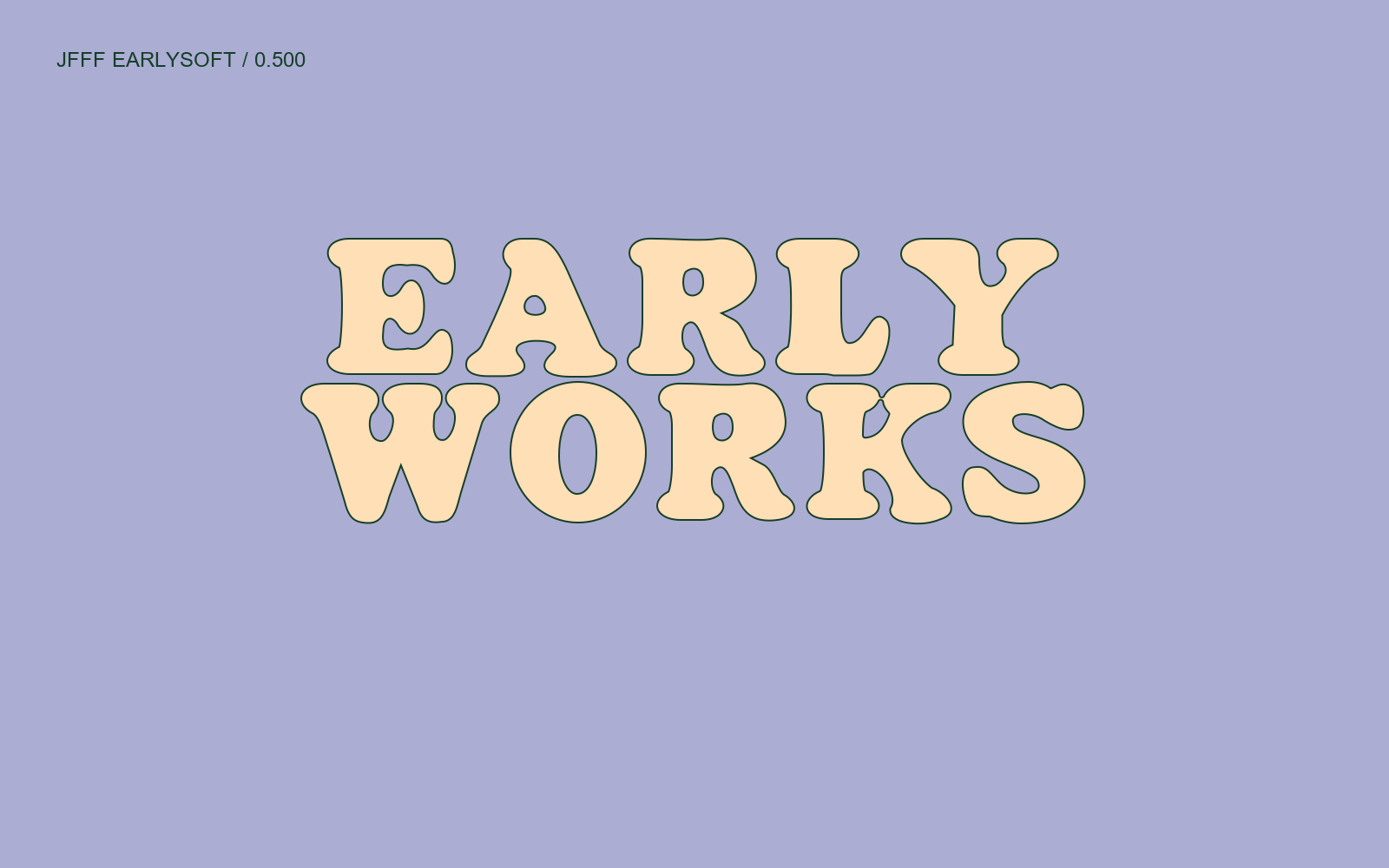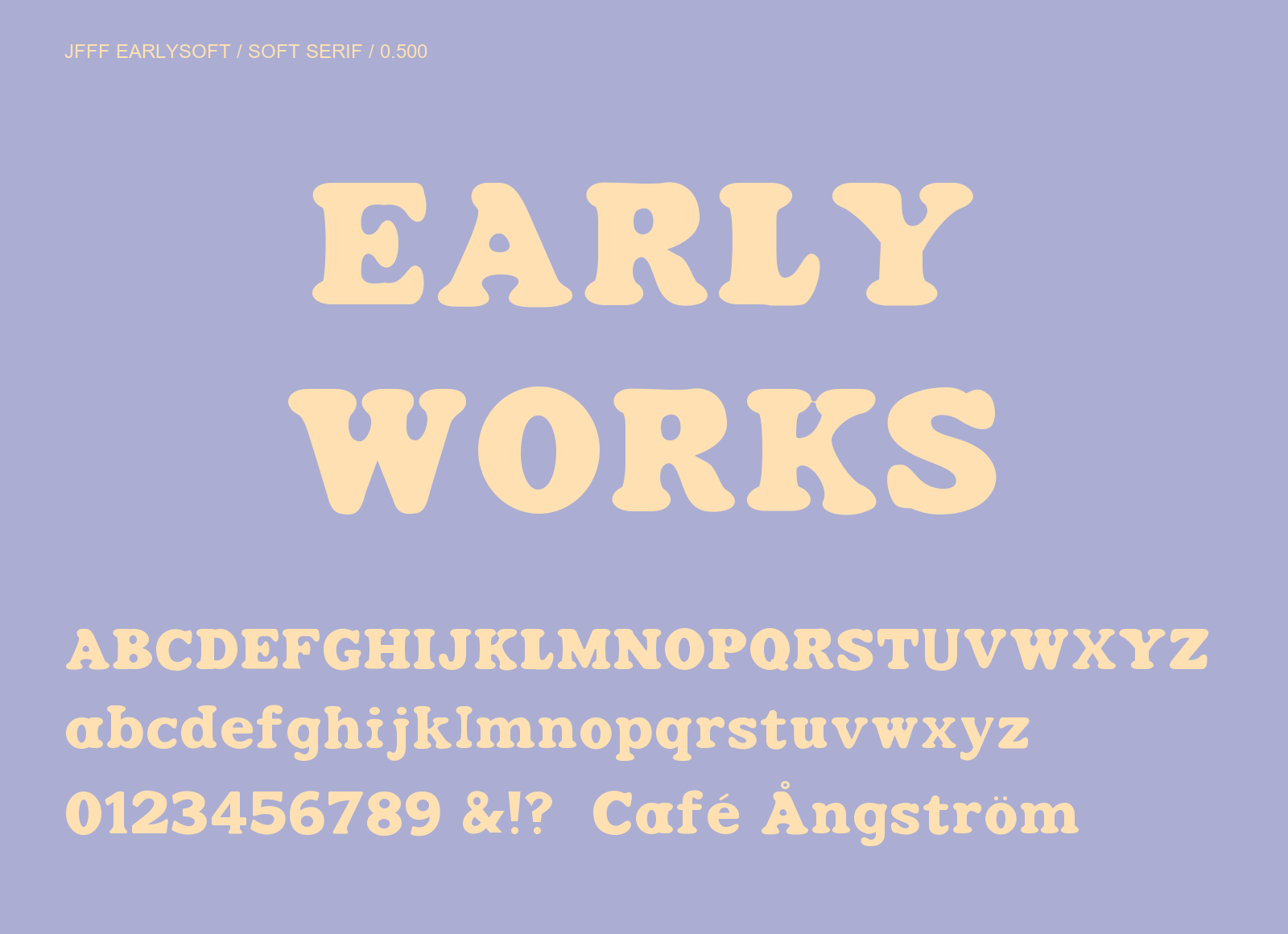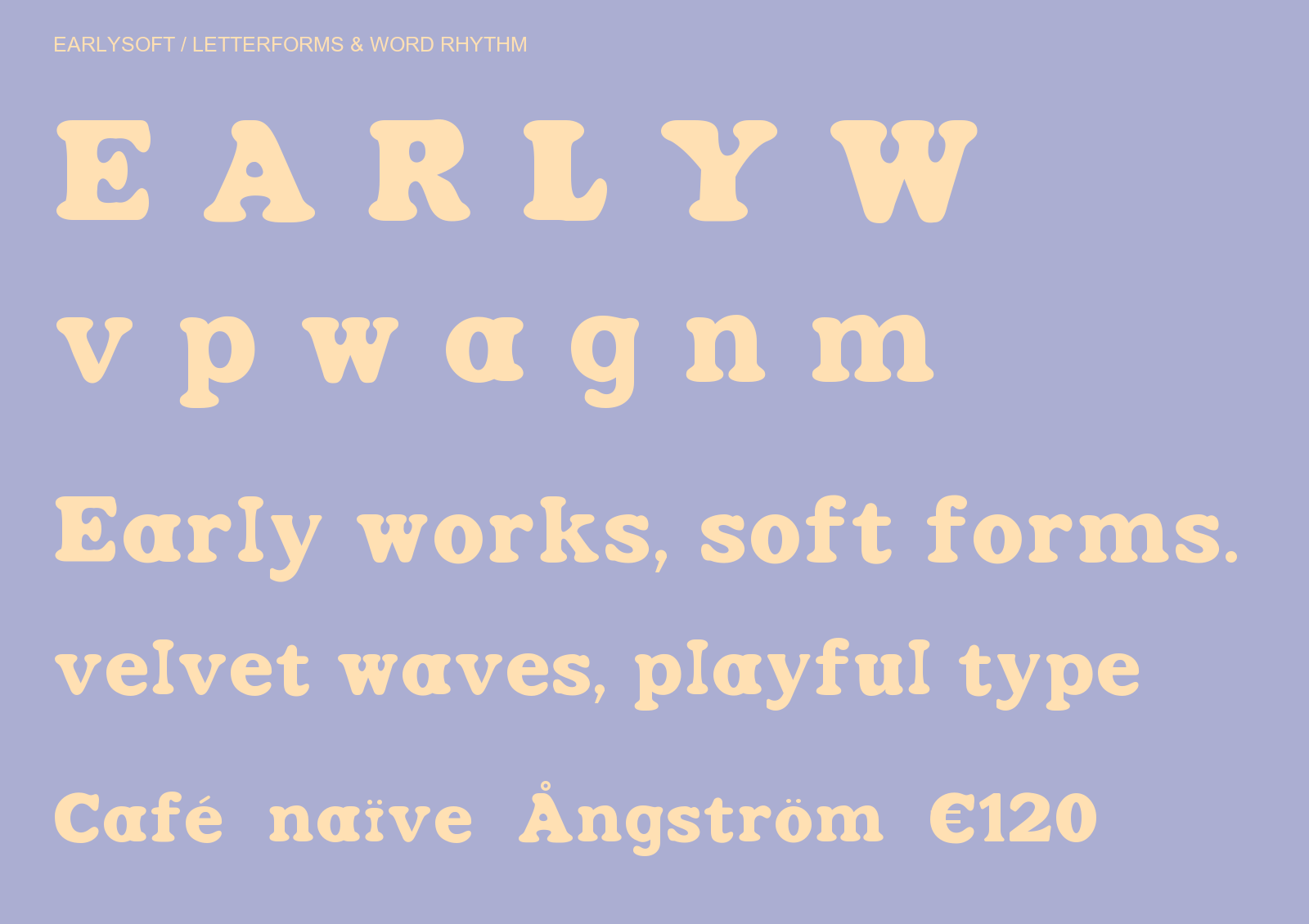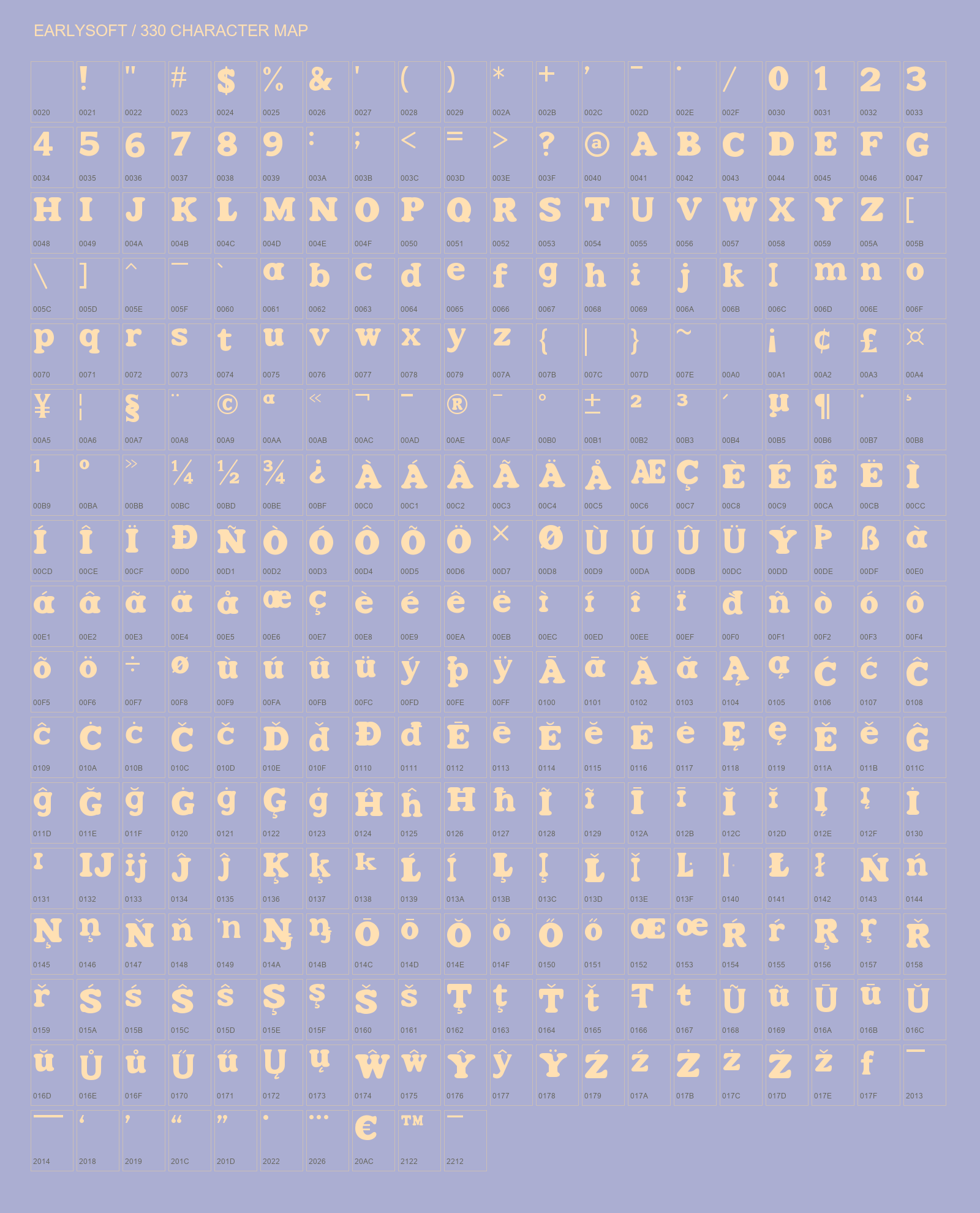
Earlysoft EARLY WORKS, rounded heavy serif. Outline is a specimen effect.
Soft curves, early works. Earlysoft is a heavy rounded serif with swollen terminals, compact counters and playful proportions. Version 0.500 refines continuous lowercase contours, related bowls and rounded capitals, and restores fine symbol strokes. Includes 330 encoded Latin characters, figures and symbols (spaces included); 331 glyphs including .notdef. Regular style. Designed primarily for large headlines, posters and packaging; start at 48 px. No Hangul or independent combining marks. The green outline and cream fill are specimen styling, not embedded color-font features. Released under SIL OFL 1.1.